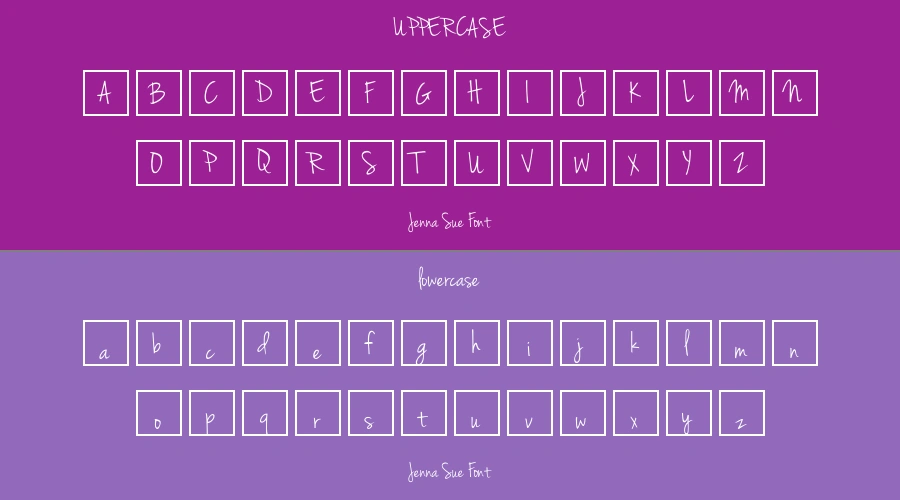
About Jenna Sue Font
Jenna Sue Font represents a sophisticated approach to type design, balancing rhythmic patterns with technical precision. Perfect for brand guidelines, this font family showcases impressive reliability and market appeal throughout its character set. Designers appreciate its versatility and reliability.
Designers will appreciate nuanced touches including tapered strokes and terminal characters, adding sophistication to any project. These features become apparent in specification lists, where brand recognition matters most. The careful treatment of stem weight and modern touches ensures optimal performance.